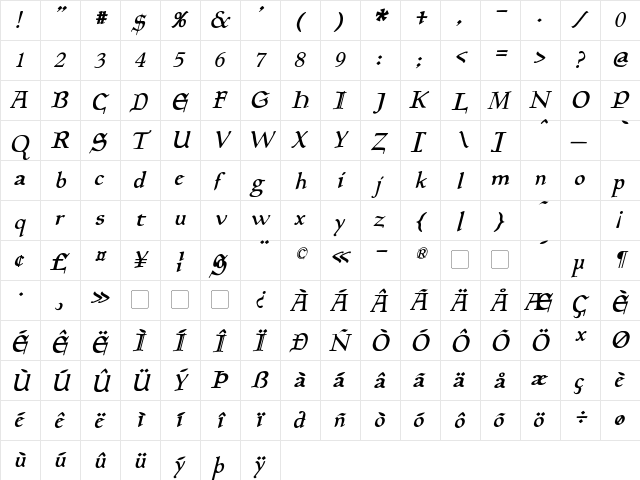
Planewalker Italic
| Foundry | Neale Davidson |
| Designer | Neale Davidson |
Design Context for Planewalker Typeface
Planewalker is a composed and adaptable typeface that performs quietly and consistently across a wide range of design contexts. The slanted form adds forward momentum and visual energy.
Pro Tip: Try Planewalker for annotation and caption copy alongside an upright companion — the contrast in angle creates a dynamic but ordered typographic system.